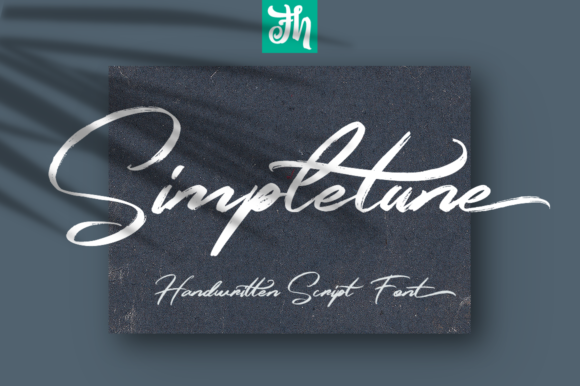
Simpletune Font
Immerse yourself in the world of Simpletune Font, a captivating script font family born from the creative mind of feydesign. Each letter dances across the page with elegant strokes, evoking a sense of charm and sophistication that will elevate your designs to new heights.
With its effortless flow and graceful curves, Simpletune Font is a masterpiece of digital artistry. Its sweeping lines and delicate flourishes add a touch of whimsy and romance to any project, making it the perfect choice for invitations, logos, branding, and more.
Whether you're a seasoned designer or just starting your creative journey, Simpletune Font is the perfect tool to bring your vision to life. Its versatility shines in a myriad of applications, from wedding invitations and greeting cards to social media graphics and website designs.
Let Simpletune Font transport you to a world of beauty and inspiration. Its timeless aesthetic and captivating presence will leave a lasting impression on your audience, ensuring that your designs stand out from the crowd.